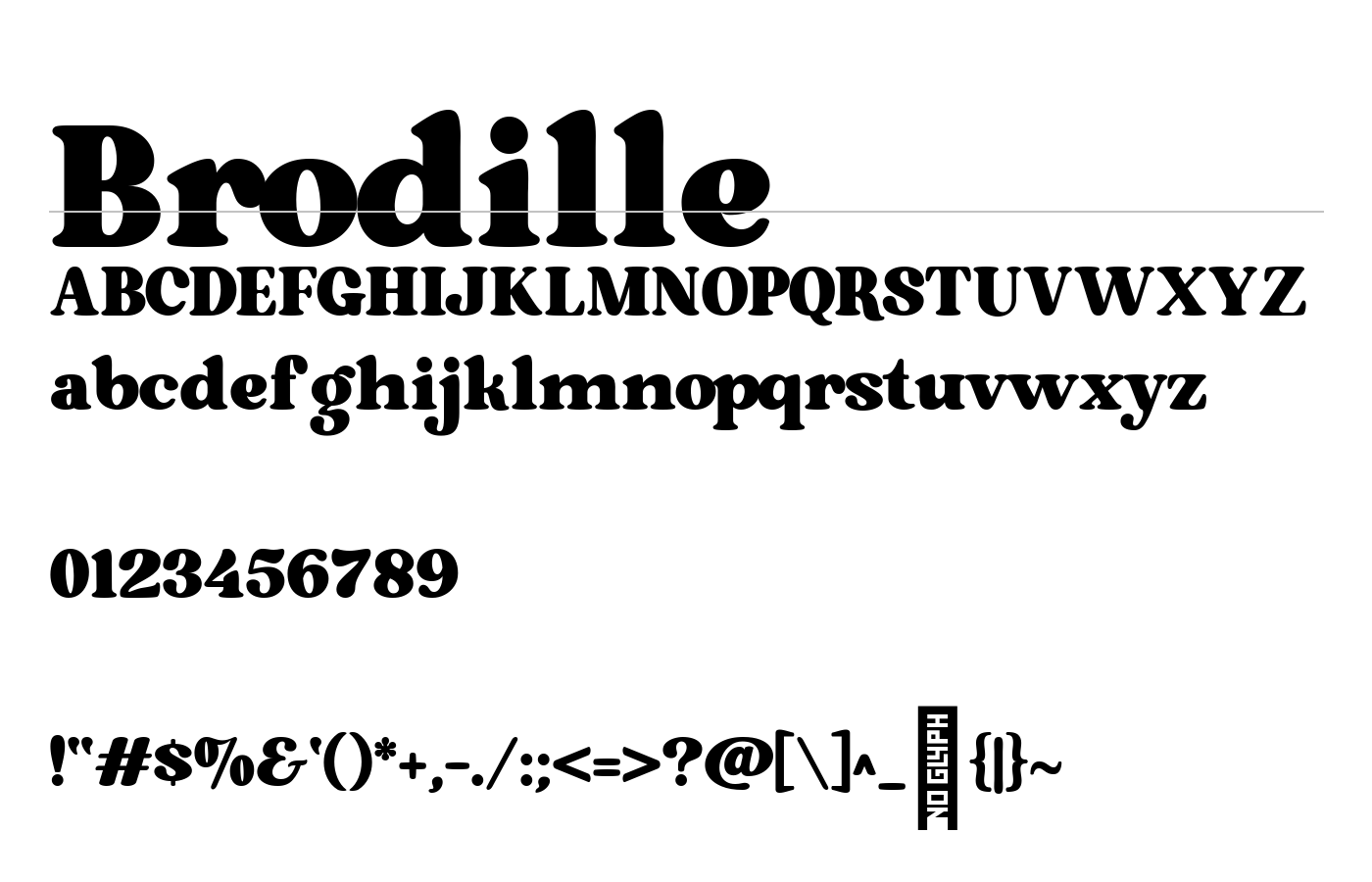
Brodille is a bold slab serif font with strong, chunky letterforms and moderate contrast that give it a sturdy yet playful feel. Its thick, bracketed serifs and rounded edges add a touch of warmth and character, making it ideal for logos, headlines, and branding that seek a friendly but confident presence. This font works well in designs that require a vintage-inspired, approachable style while maintaining clear readability and impact.
Brodille Font
About Brodille Font
| Font family | Brodille Font |
| Designer | Ni Nyoman Puspa Dewi |